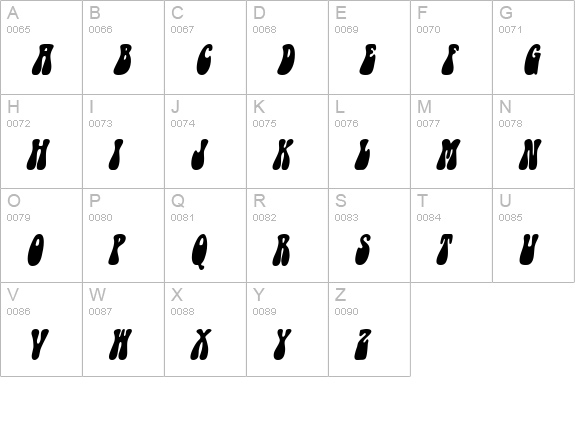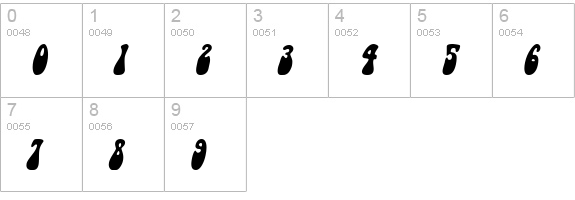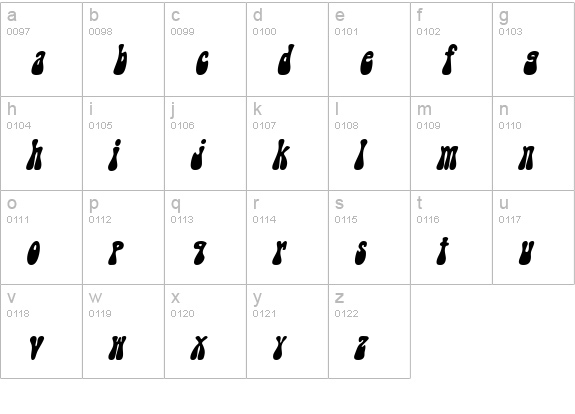
GroovyCondensed Italic Font Details
GroovyCondensed Italic is a distinctive, italic variant in the GroovyCondensed typeface family \xE2\x80\x94 well suited to design and typography projects.
GroovyCondensed Italic font is a sleek and stylish typeface that exudes a sense of modernity and sophistication. Its condensed design adds a touch of elegance to any project, making it perfect for titles, headings, and other display purposes. The italicized style of the font adds a dynamic and energetic flair, making it stand out from the crowd. The best part about GroovyCondensed Italic font is that it is completely free to download at FontsMarket.com. This means that you can enhance your designs with this stunning font without having to spend a penny. Whether you're working on a branding project, a poster design, or any other creative endeavor, GroovyCondensed Italic font is sure to make a bold statement and leave a lasting impression. Download it today and elevate your design projects with this eye-catching typeface.